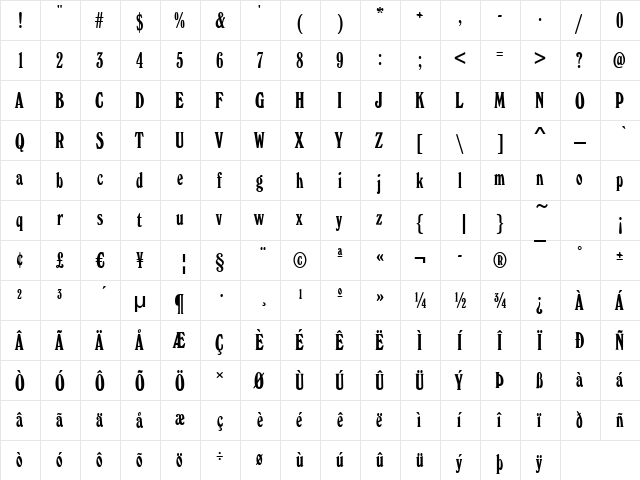
Whitehall-Elongated Regular
Design Context for Whitehall-Elongated Typeface
Whitehall-Elongated offers clean, dependable letterforms without strong stylistic allegiance, making it a practical choice for designers who need flexibility.
Pro Tip: Pair Whitehall-Elongated with a font of contrasting weight or personality to build a more expressive typographic hierarchy.